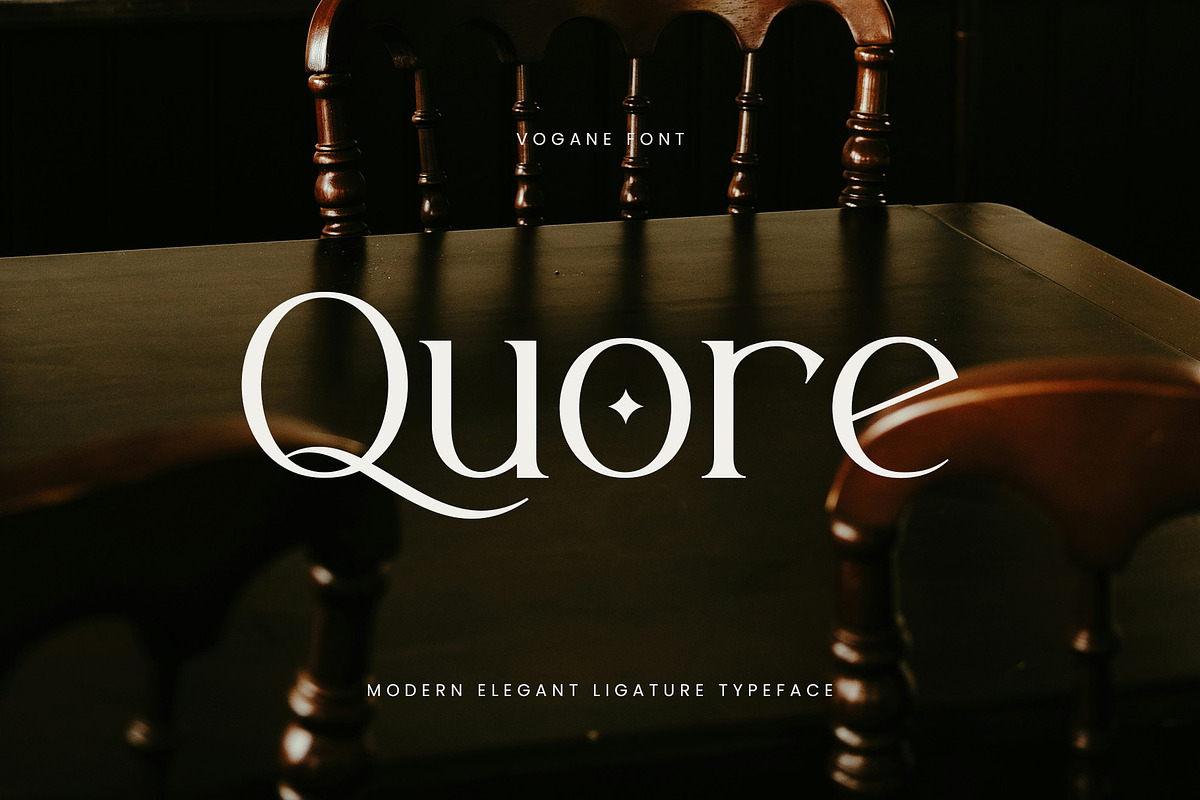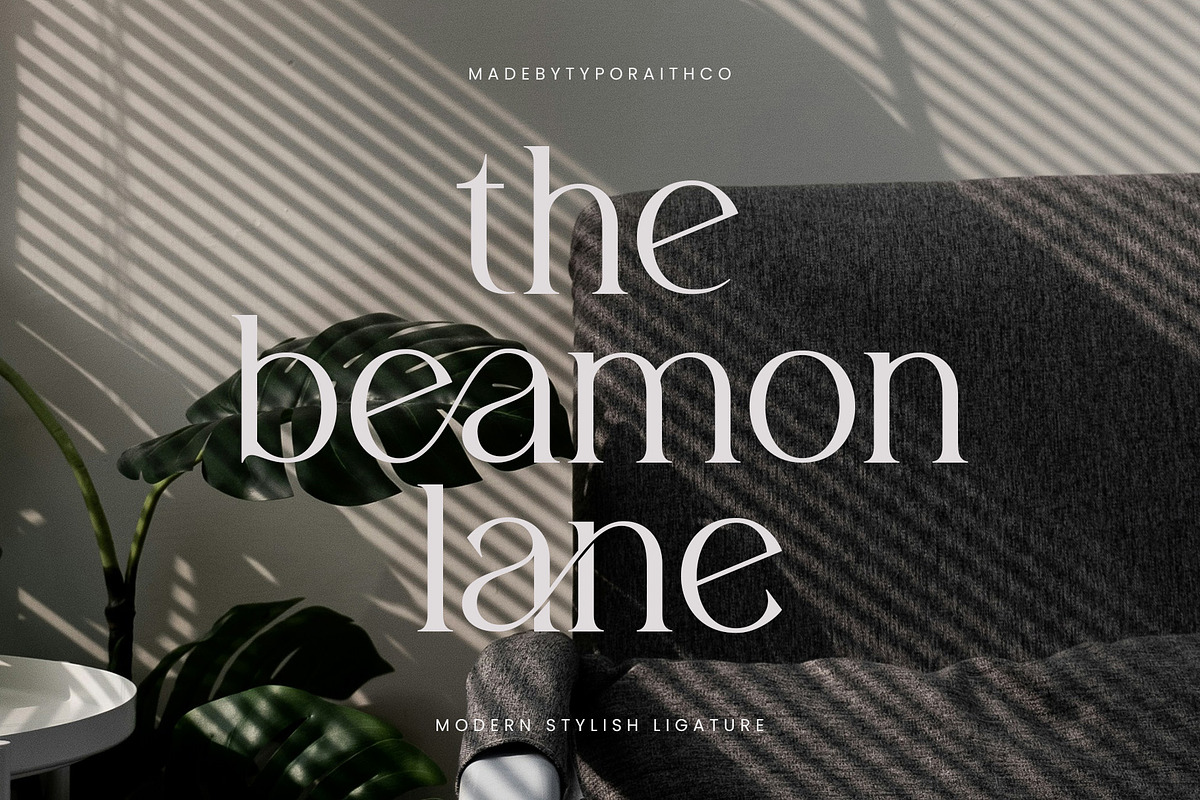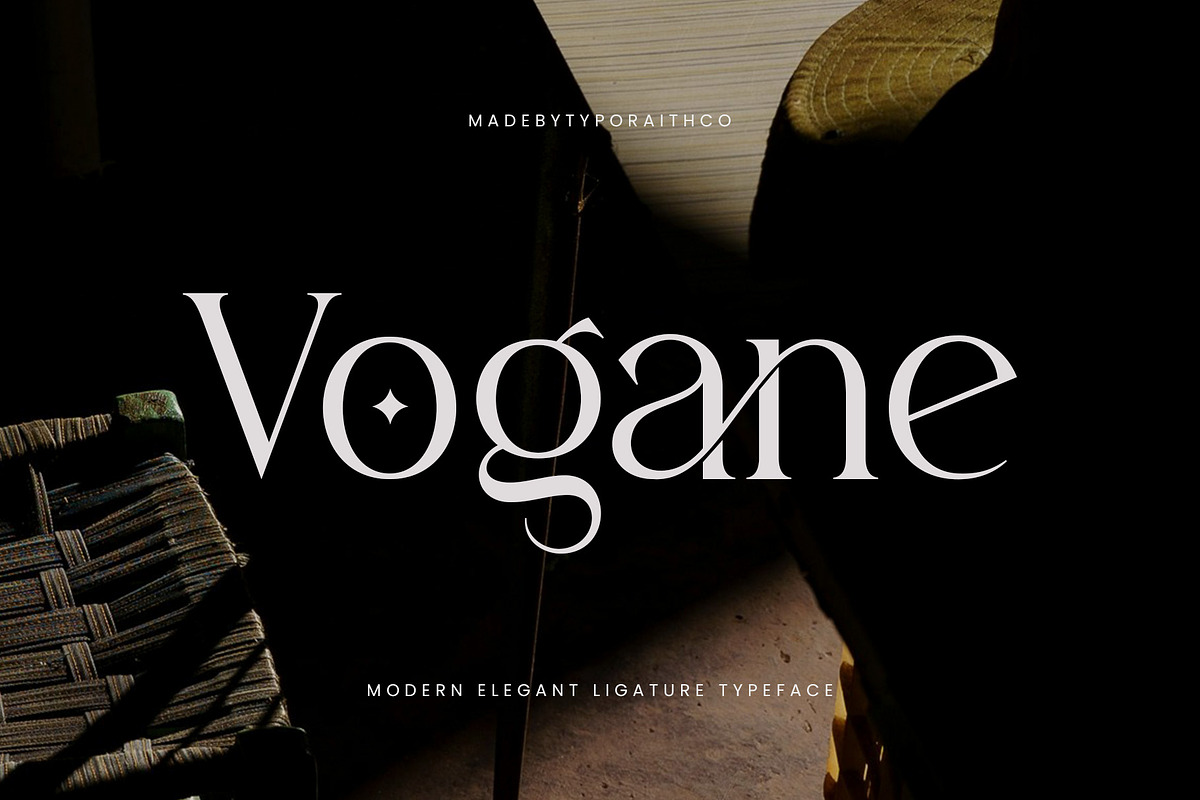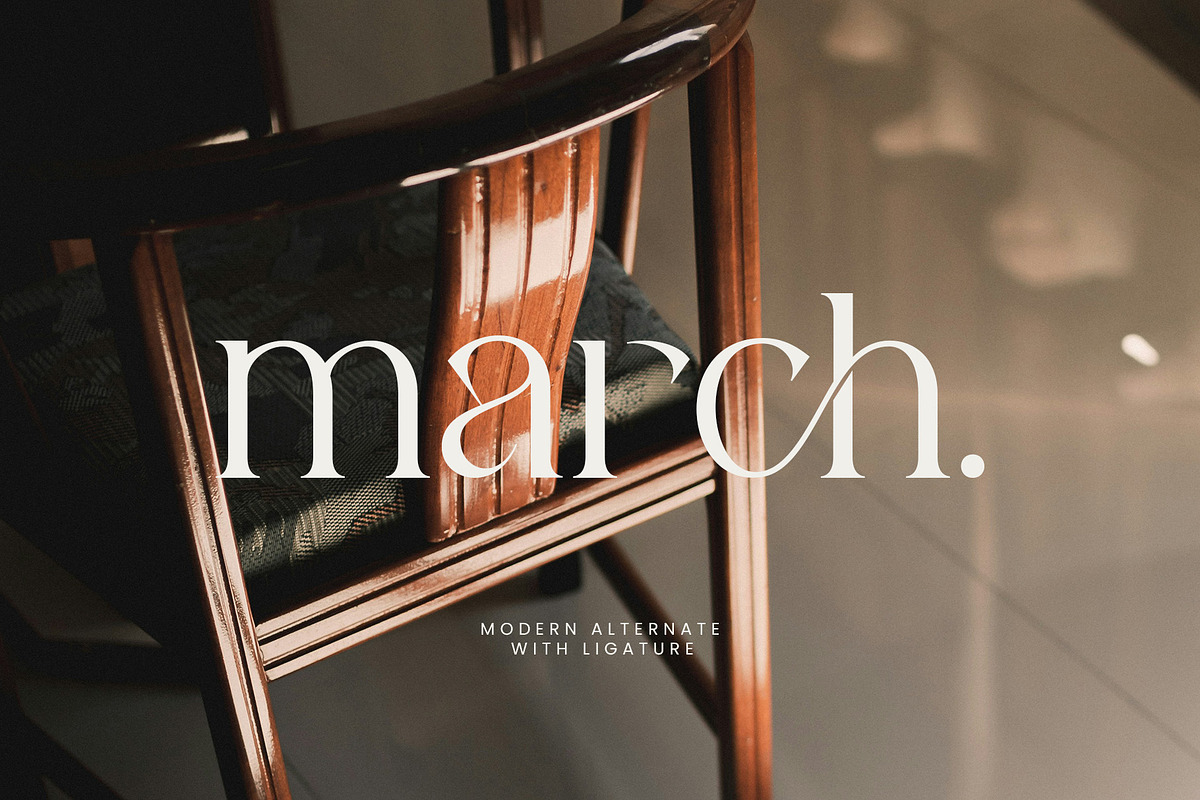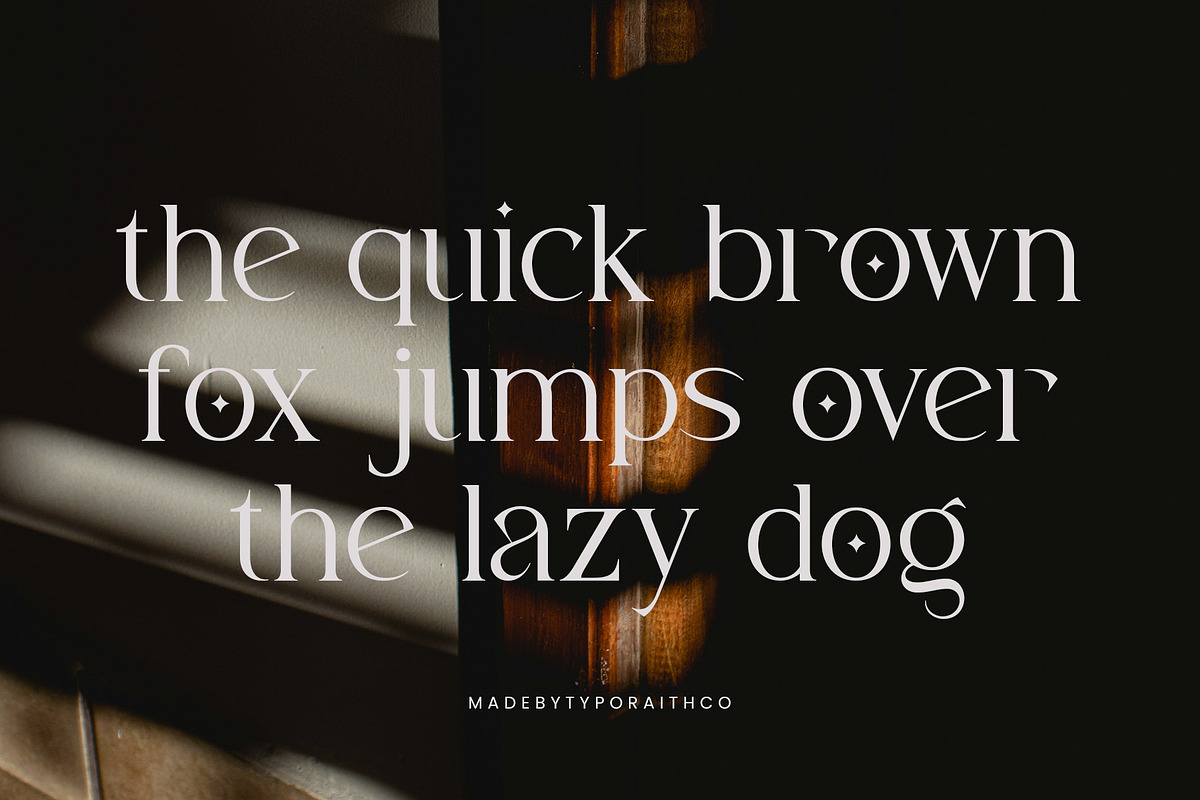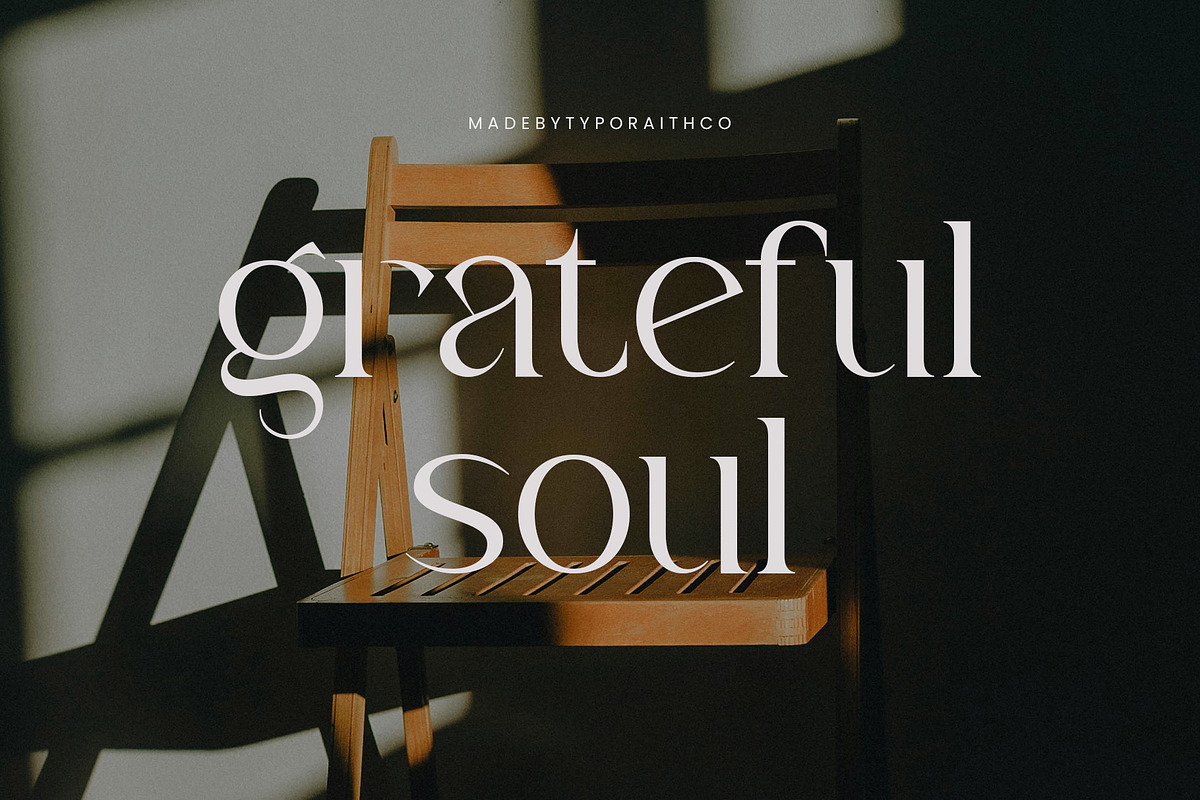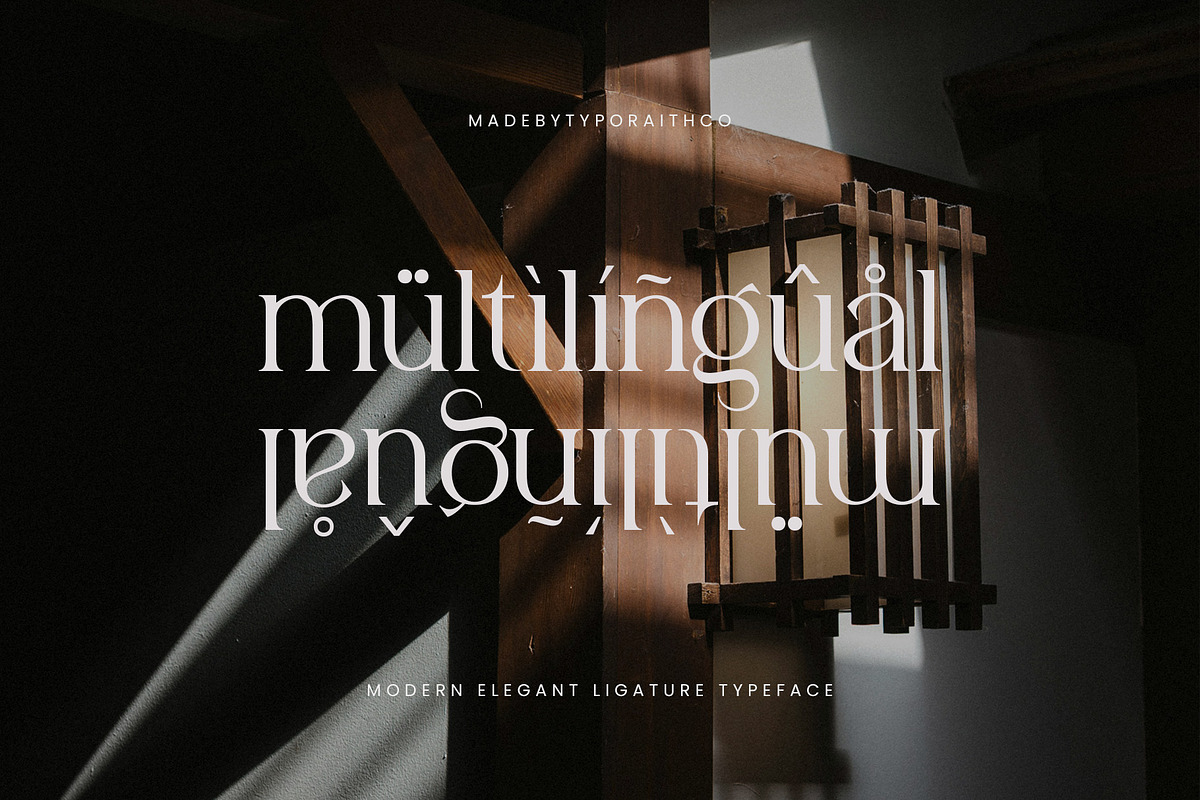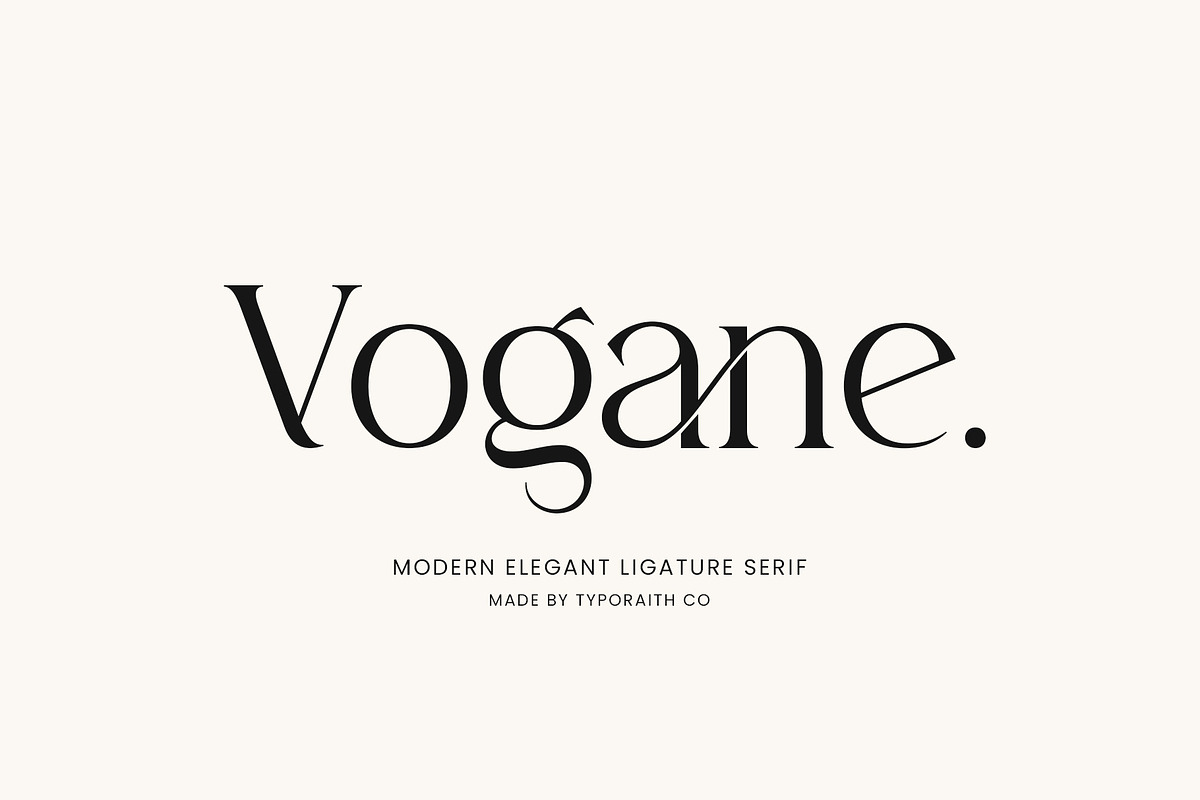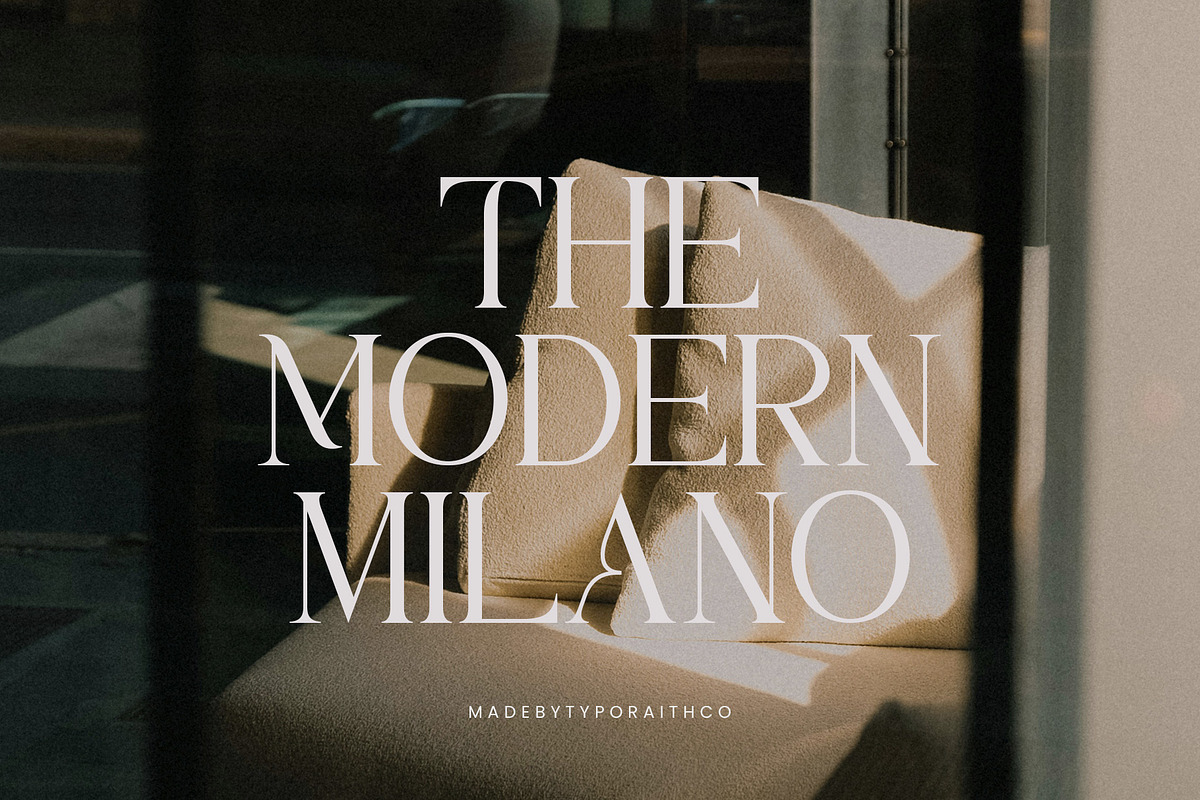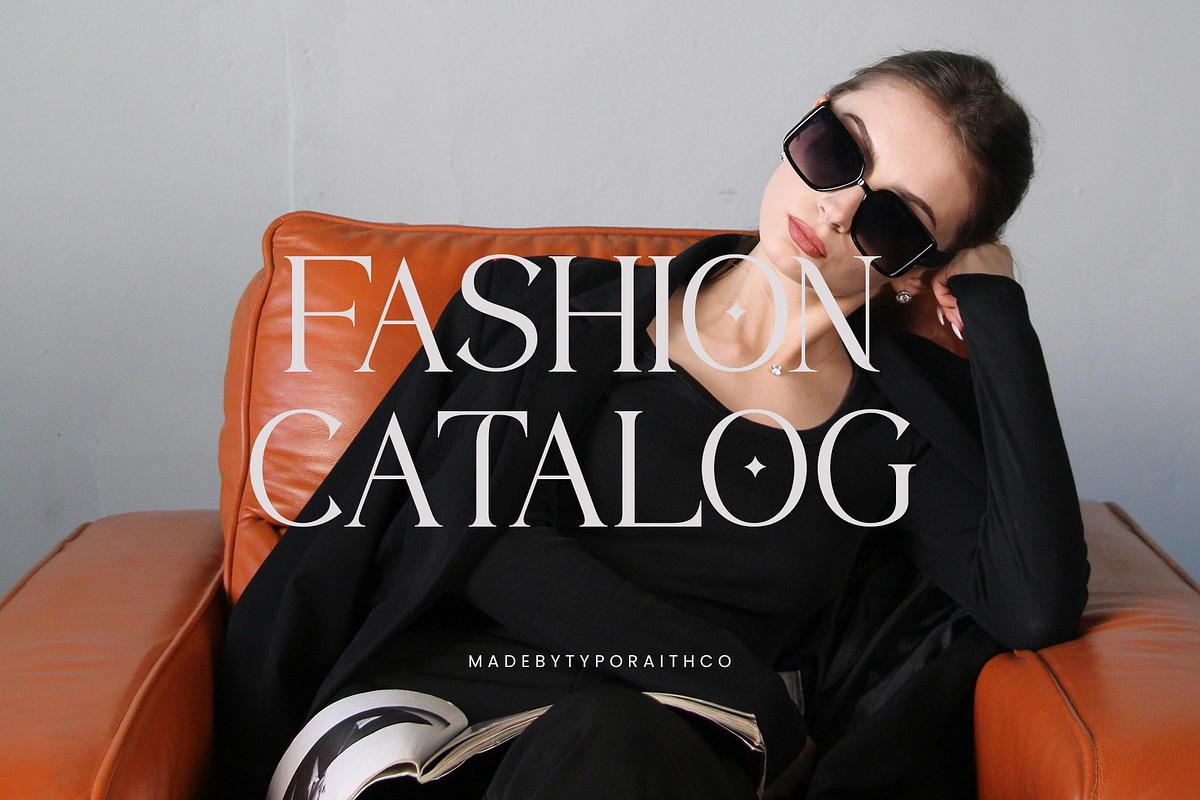
Vogane | Modern Elegant Ligature
Vogane is a modern elegant serif typeface with a touch of sophistication and style. Designed with refined curves and delicate details, Vogane brings a luxurious and timeless character to your design projects. This font includes stylish ligatures and alternate characters that make it perfect for branding, editorial design, logos, invitations, and high-end packaging.
Vogane offers both classic charm and modern versatility — ideal for designers who seek elegance in simplicity.
Stylish Ligatures & Alternates
Alternates & Ligatures
Perfect for: Logos, Magazines, Branding Projects, Wedding Invitations, Fashion, Beauty, and Luxury Packaging.
Bring elegance and modern beauty to your typography with Vogane.